Discover 31 stunning stencil fonts ideal for creative projects, from bold headlines to t-shirt designs. This handpicked collection includes both free and premium options—easy to download and use for personal, commercial, or branding needs. Preview and access each font to elevate your next design.
Introduction: Why Stencil Fonts Matter for Modern Design
Stencil fonts for creative projects are a powerful tool for designers, creators, and business owners seeking to add bold, industrial, or artistic flair to their work. Their distinctive gaps and geometric shapes make them perfect for signage, branding, packaging, and eye-catching social media graphics. As design trends in 2026 emphasize standout typography, stencil fonts offer versatility—from rugged to elegant—across both digital and print mediums. Whether you’re crafting invitations, designing merchandise for your Etsy store, or refreshing your branding, the right stencil font can dramatically enhance your project’s impact.
Comparison Table: Top 5 Stencil Fonts for Creative Projects
| Stencil Font Letters | Classic, Bold Stencil | Posters, Labeling, Crafts | Commercial & Personal |
| Matryk Stencil | Modern, Minimalist Stencil | Branding, Logos, Apparel | Commercial & Personal |
| Black Stencil | Heavyweight, Dramatic Stencil | Headlines, T-shirts, Signage | Commercial & Personal |
| Repad Stencil | Edgy, Urban Stencil | Streetwear, Banners, Event Flyers | Commercial & Personal |
| Rystabel | Elegant, Serif Stencil | Wedding Invites, Menus, Branding | Commercial & Personal |
Individual Font Reviews: Standout Stencil Fonts to Download
Stencil Font Letters Graphic by Sofiamastery · Creative Fabrica
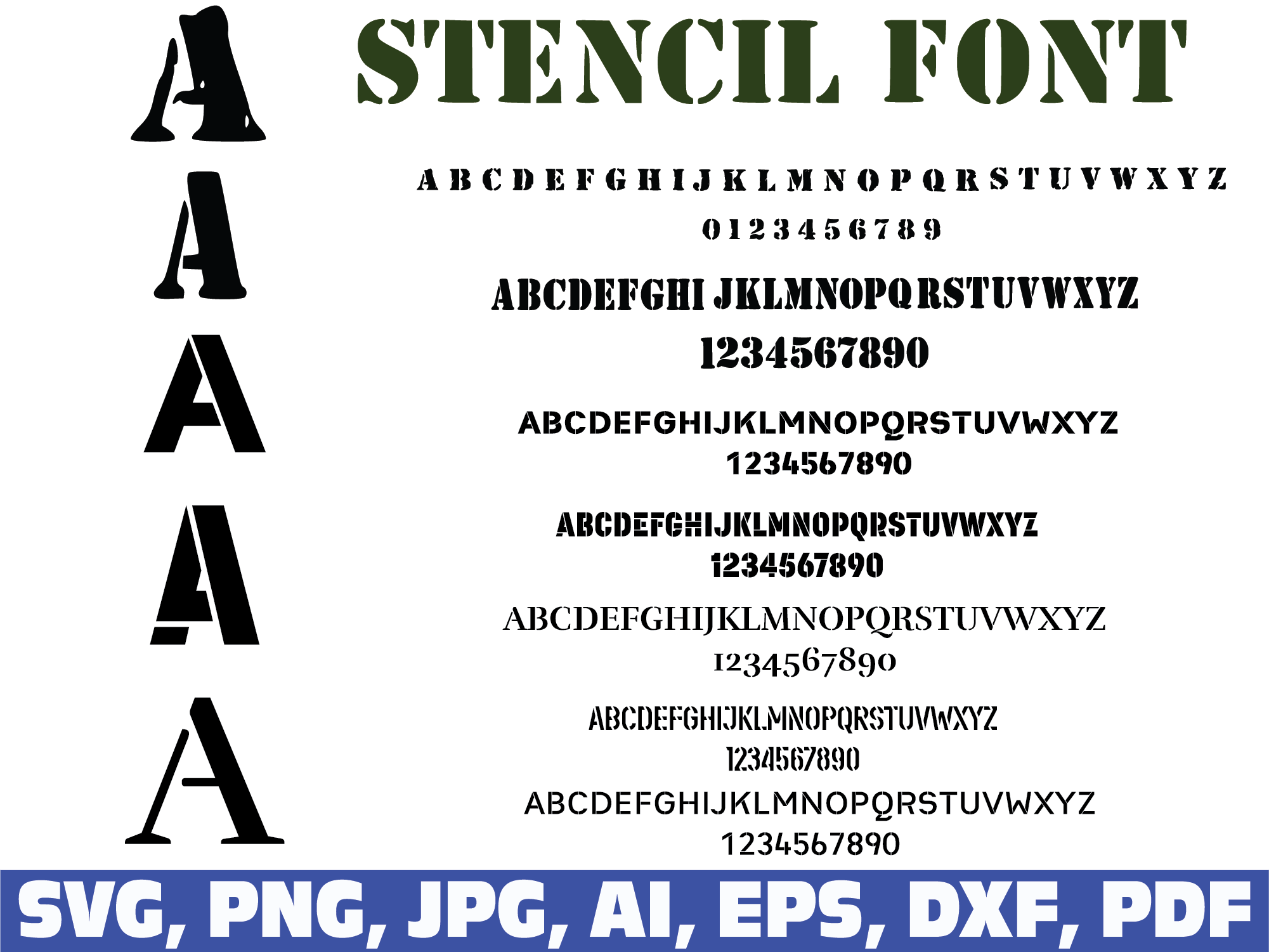
Stencil Font Letters offers a timeless stencil aesthetic with bold, clear lines and classic geometric shapes. Its versatility makes it ideal for craft projects, DIY labeling, poster artwork, and industrial-themed branding. The straightforward look fits especially well on handmade cards, product labels, and standout packaging.
Matryk Stencil Font by Digital Typeface Studio · Creative Fabrica
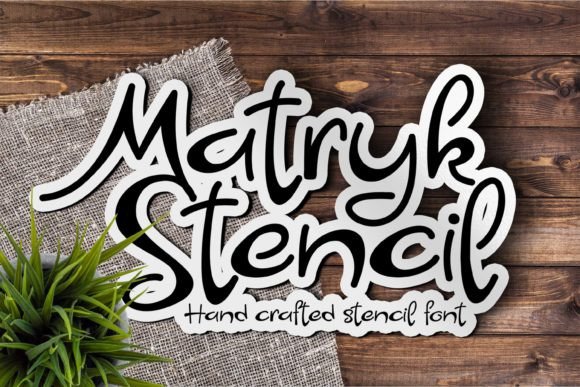
Matryk Stencil Font brings a sleek, contemporary edge to stencil typography. Its minimalist curves and generous spacing make it a go-to for branding, fashion labels, minimalist packaging, and tech-oriented websites. Designers looking to achieve a progressive, clean, and modern look will appreciate this font’s flexibility in digital and print environments.
Black Stencil Font by Patlot Digital.Studio · Creative Fabrica
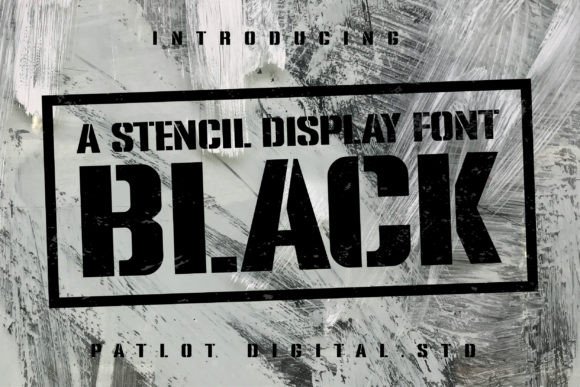
Black Stencil Font is bold, dramatic, and demands attention. Its strong letterforms and substantial weight make it perfect for impactful headlines, t-shirt graphics, signage, and advertisements. The font’s rugged, street-inspired style is also ideal for branding campaigns that need to exude strength and confidence.
Repad Stencil Font by Digital Typeface Studio · Creative Fabrica
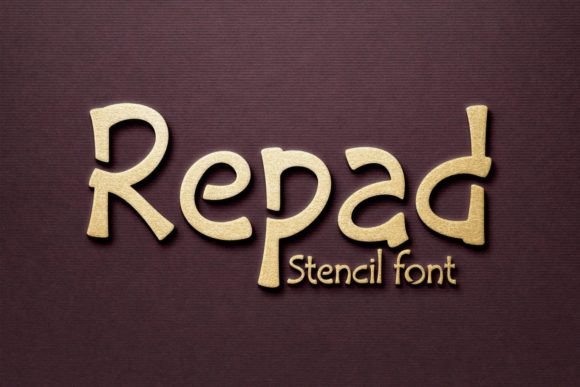
Repad Stencil Font features an edgy, urban-inspired stencil design that works well for modern event flyers, streetwear branding, or music festival materials. Its angular shapes and distinct gaps add a contemporary personality to any project. Repad is a strong choice for designs aiming to convey urban energy or creativity.
Rystabel Font by Digital Typeface Studio · Creative Fabrica
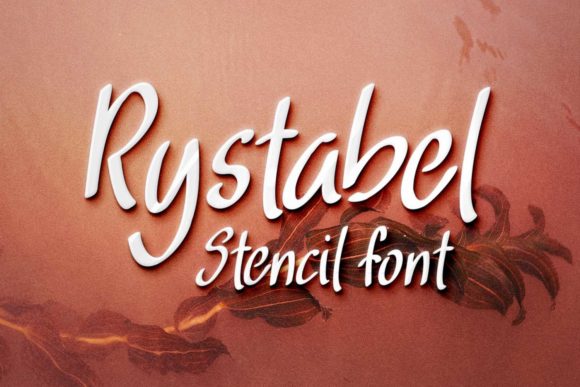
Rystabel Font stands out with its refined serif details and graceful stencil cuts, making it an elegant option for wedding invitations, restaurant menus, and upscale brand identities. The sophisticated curves and classic proportions ensure timeless appeal, especially in luxury or high-end creative projects.
How to Choose the Perfect Stencil Font for Your Projects
Selecting stencil fonts for creative projects requires careful consideration of your design’s purpose, audience, and visual impact. Start by defining the tone you want to convey—classic stencil fonts bring industrial or utilitarian vibes, while modern or serif stencil fonts can look sophisticated or artistic. Always review the included license to ensure the font supports your intended use, especially for commercial products or branding.
Consider readability at various sizes: bold and heavy stencil fonts work well for headlines and signage, while lighter, more delicate styles can add elegance to invitations and menus. Test the font on a sample of your actual design (like a poster or product mockup) to confirm it fits your overall branding. Finally, download fonts only from reputable marketplaces like Creative Fabrica, which offer both free and premium options with clear licensing. For more expert tips, check out 15 Eye Catching Fonts on Google Docs for 2026 for choosing and pairing stencil fonts confidently.
Stencil fonts for creative projects continue to inspire bold designs, unique branding, and stunning print pieces. With this curated list of free and premium options, you’ll find the perfect fit for your next poster, product label, or event flyer. Explore the fonts above, experiment with your creative vision, and download your favorites confidently to make every project stand out.